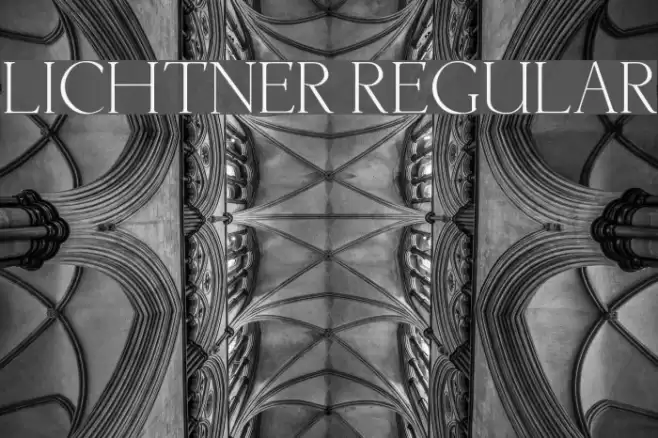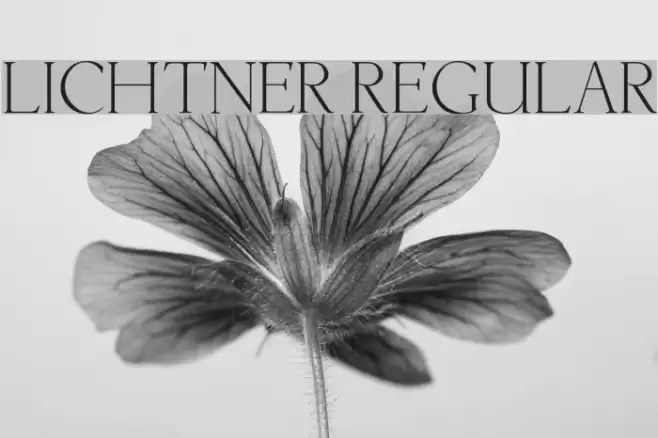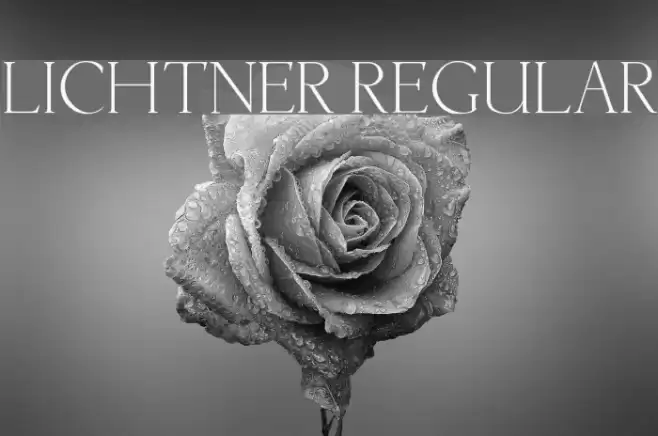
Lichtner Regular Font
Lichtner Regular Description
This font features a classic serif style with elegant, thin strokes and high contrast between thick and thin lines. The uppercase letters are tall and stately, with sharp serifs that give a sense of sophistication and formality. The lowercase letters maintain a consistent style, with a slight variation in stroke width that adds a touch of dynamism. The numerals are proportionate and align well with the overall aesthetic, while the special characters are designed to complement the letterforms seamlessly. This font exudes a timeless elegance, making it suitable for a variety of formal and professional applications.
A classic serif font with high contrast and elegant, sharp serifs from Serif fonts.
- Proposed Projects: Ideal for use in editorial design, book covers, formal invitations, and branding for luxury products.
- Overall Style: Classic